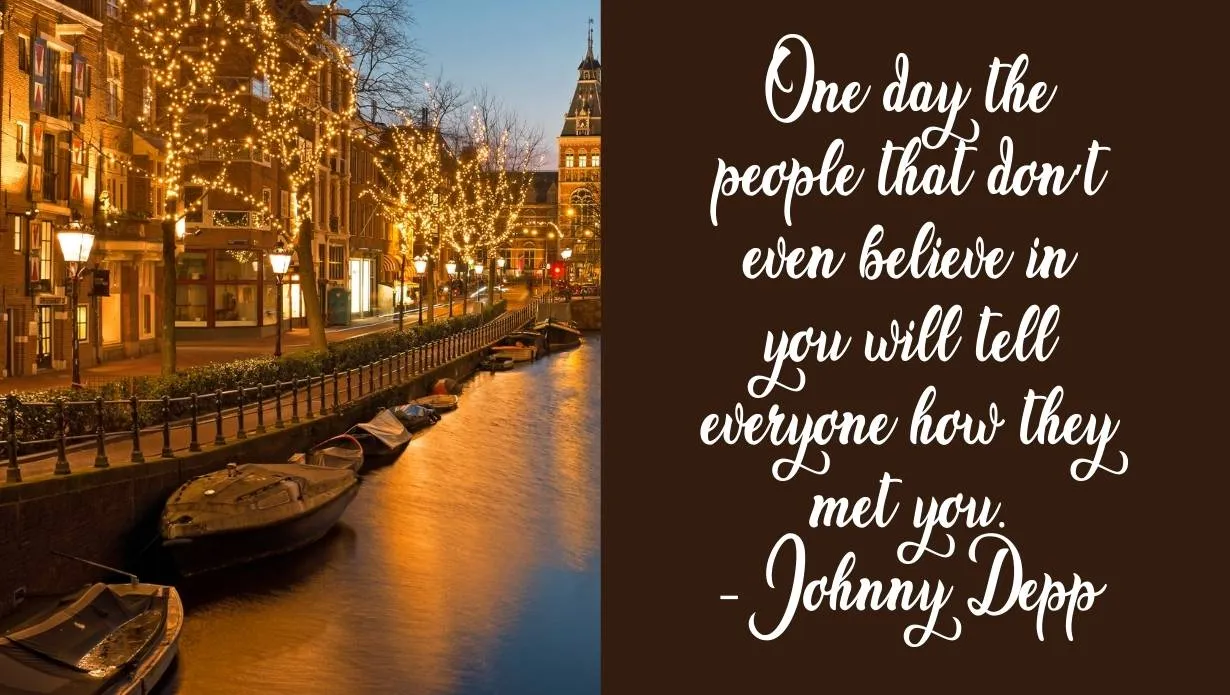
Welcome, we are going to introduce to you the best outstanding typeface style. This font style was designed and published by a well-known notable graphic designer named Lettersiro. This typeface is known as the name of Amsterdam Font. It is a member of the Handwritten typeface family.
It consists of a single regular typeface style. This typeface has a very stunning and stylish texture look appearance for the viewers.
| Name | Amsterdam Font |
| Designer | Lettersiro |